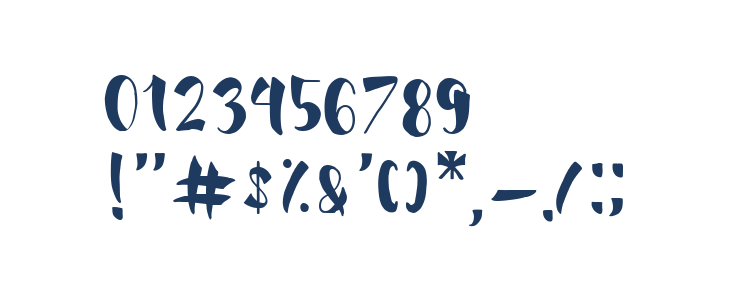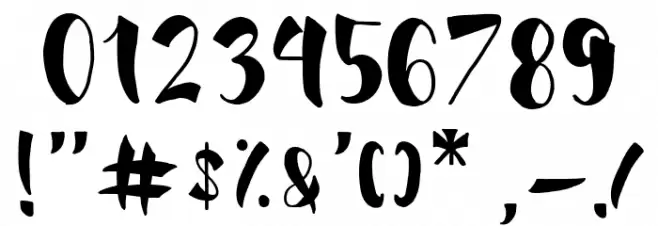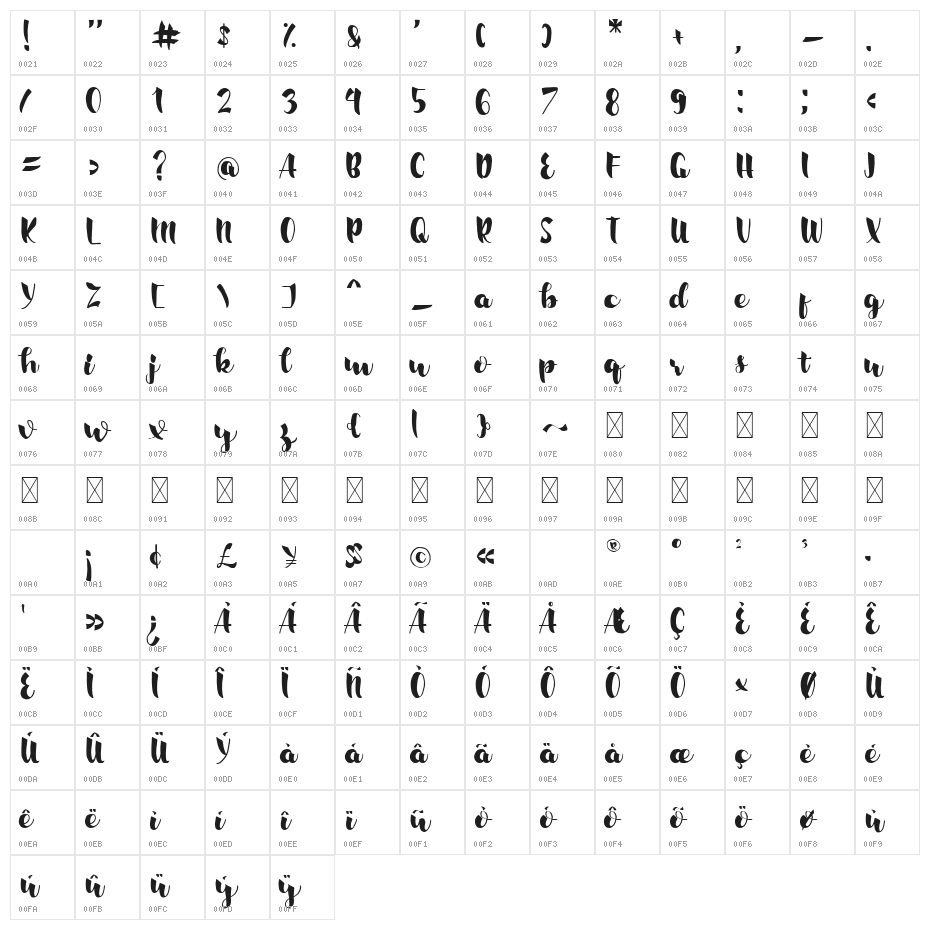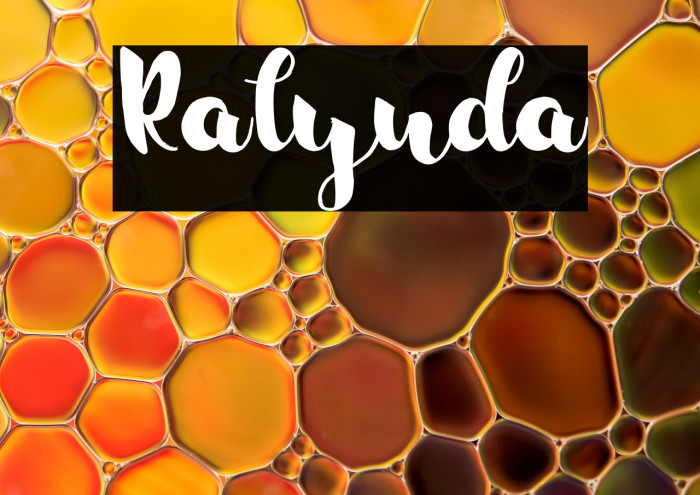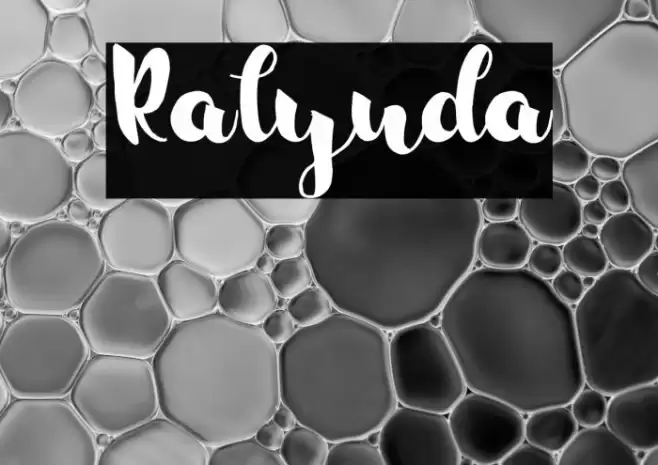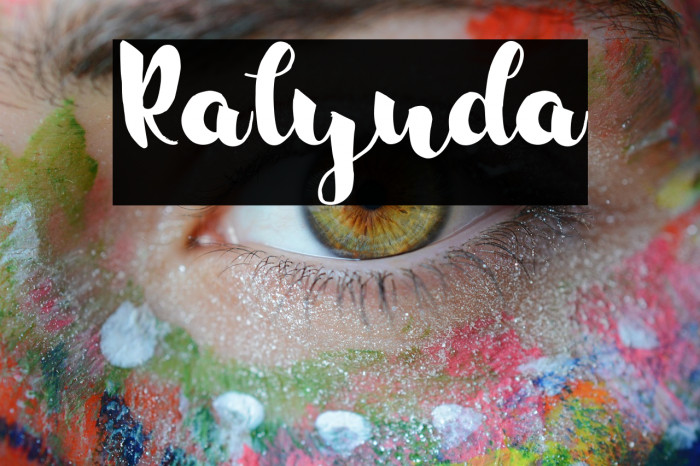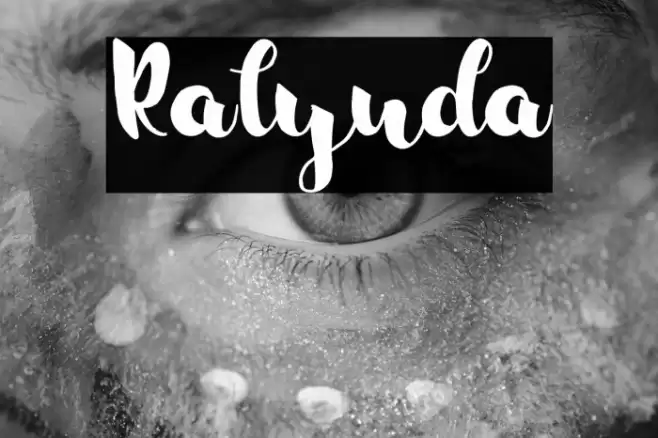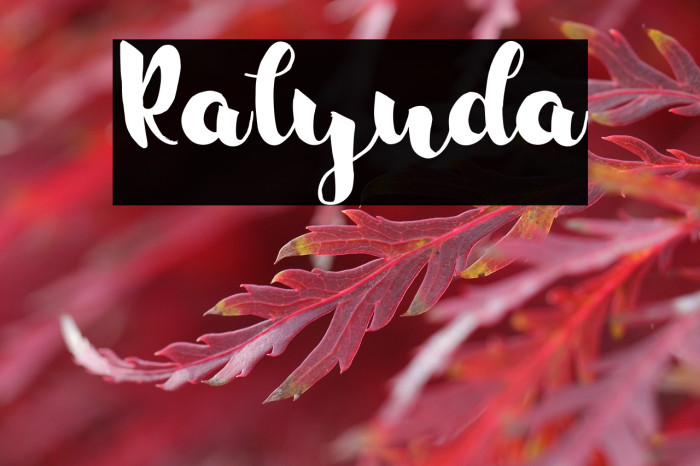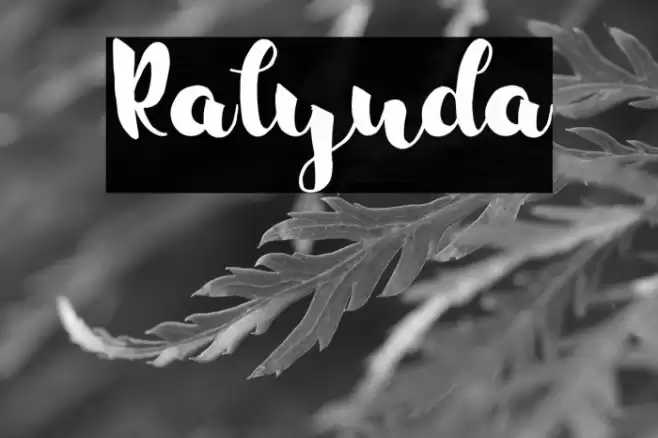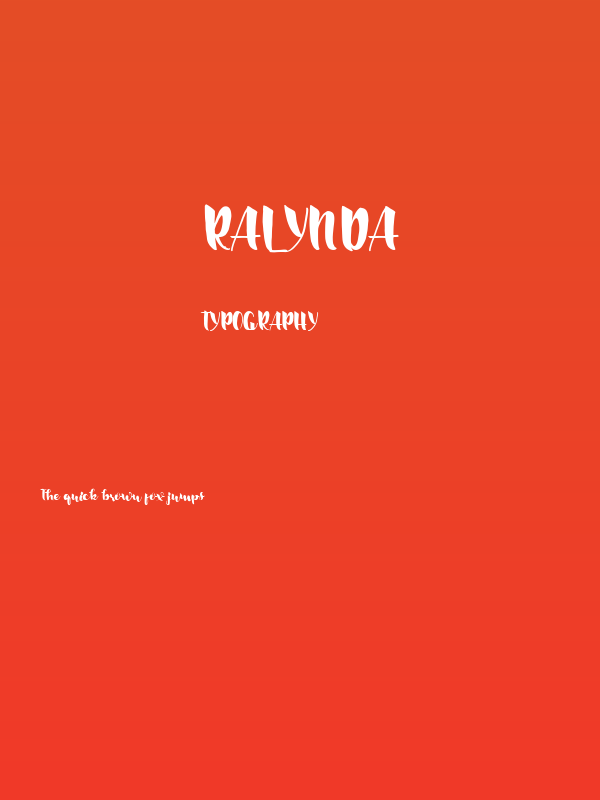
Ralynda Font
Ralynda Description
This font features a bold and expressive script style with a hand-drawn appearance. The letters are connected, creating a fluid and dynamic look, reminiscent of calligraphy. The uppercase letters are tall and slightly slanted, while the lowercase letters maintain a consistent flow with elegant loops and curves. The numbers are bold and maintain the same artistic flair, making them stand out. Special characters are creatively designed, adding to the font's overall artistic appeal. This font is ideal for projects that require a personal touch or a creative, artistic vibe.